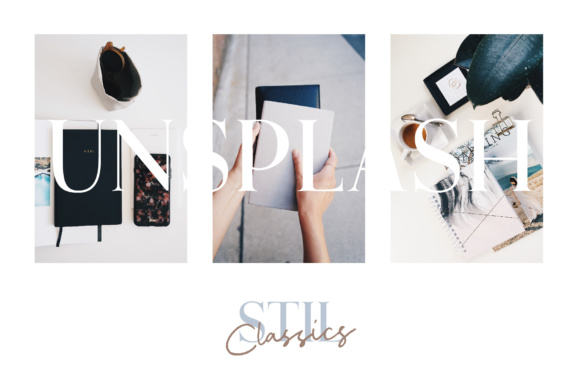
Cest Lavie Duo Font: The Perfect Blend of Seriousness and Fun
In life, we all experience moments of seriousness, focus, and intense thinking. However, it’s equally important to have a balanced life that’s filled with relaxation, fun, and happiness. When it comes to typography, finding the right font that captures both the serious and enjoyable aspects of life can be a challenge. That’s where the Cest Lavie Duo Font comes in – a beautifully crafted handwritten font that combines the best of both worlds.
What does C’est Lavie mean?
C’est Lavie, which translates to “Life” in French, is a phrase that embodies the essence of living. It’s a celebration of the ups and downs, the twists and turns, and the moments that make life worth living. The name itself is a reflection of the font’s personality – a perfect blend of seriousness and playfulness.
Cest Lavie Duo Font: A Perfect Combination
The Cest Lavie Duo Font is a thoughtfully designed font that consists of two main styles: a script version and a serif clean version. The script version is created with the freedom of writing by hand, giving it a personal and organic feel. The letters flow effortlessly, with subtle variations in size and shape that mimic the natural movement of handwriting.
On the other hand, the serif clean version is crafted with pixel perfection, resulting in a crisp and clean design. The serifs add a touch of sophistication and elegance, making it perfect for headings, titles, and other display text.
Key Features of Cest Lavie Duo Font
- Handwritten script version: The script version of Cest Lavie is designed to mimic the natural flow of handwriting. It’s perfect for adding a personal touch to your designs.
- Serif clean version: The serif clean version is crafted with precision and attention to detail, making it ideal for display text and headings.
- Pixel perfection: The font is designed with pixel perfection in mind, ensuring that it looks sharp and clean on various devices and screen sizes.
- Multilingual support: Cest Lavie supports multiple languages, making it a versatile font for designers and businesses with a global audience.
Use Cases for Cest Lavie Duo Font
The Cest Lavie Duo Font is a versatile font that can be used in various design projects, including:
- Branding and logos: The font’s unique blend of seriousness and playfulness makes it perfect for branding and logos that require a touch of personality.
- Headings and titles: The serif clean version is ideal for headings and titles that require a clean and sophisticated look.
- Body text: The script version can be used for body text to add a personal touch to your content.
- Advertising and marketing materials: The font’s unique style makes it perfect for advertising and marketing materials that require a touch of creativity.
Why Choose Cest Lavie Duo Font?
With so many fonts available, why choose Cest Lavie Duo Font? Here are a few reasons:
- Unique style: The font’s blend of seriousness and playfulness makes it stand out from other fonts.
- Versatility: The font can be used in various design projects, from branding and logos to headings and body text.
- High-quality design: The font is crafted with precision and attention to detail, ensuring that it looks sharp and clean on various devices and screen sizes.
In conclusion, the Cest Lavie Duo Font is a beautifully crafted font that combines the best of both worlds – seriousness and playfulness. Its unique style, versatility, and high-quality design make it perfect for designers and businesses looking for a font that can add a touch of personality to their designs. Whether you’re looking for a font for branding, headings, or body text, Cest Lavie Duo Font is an excellent choice.